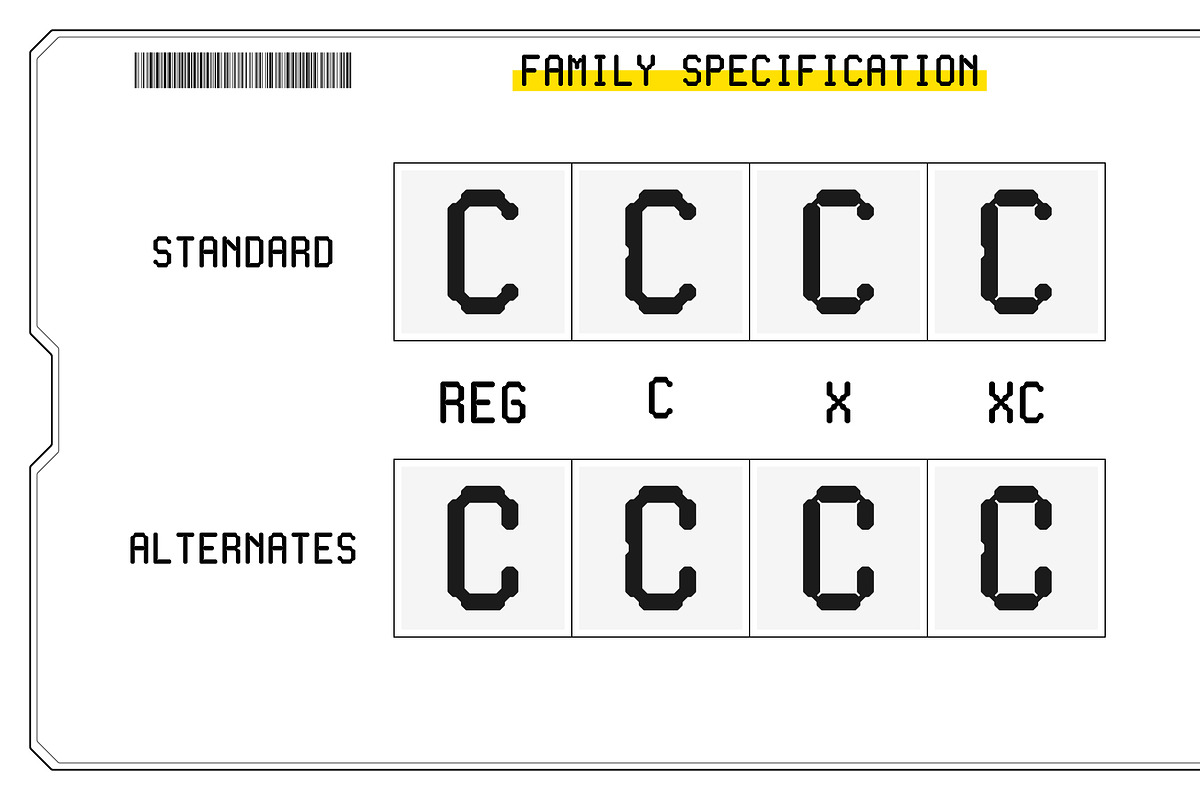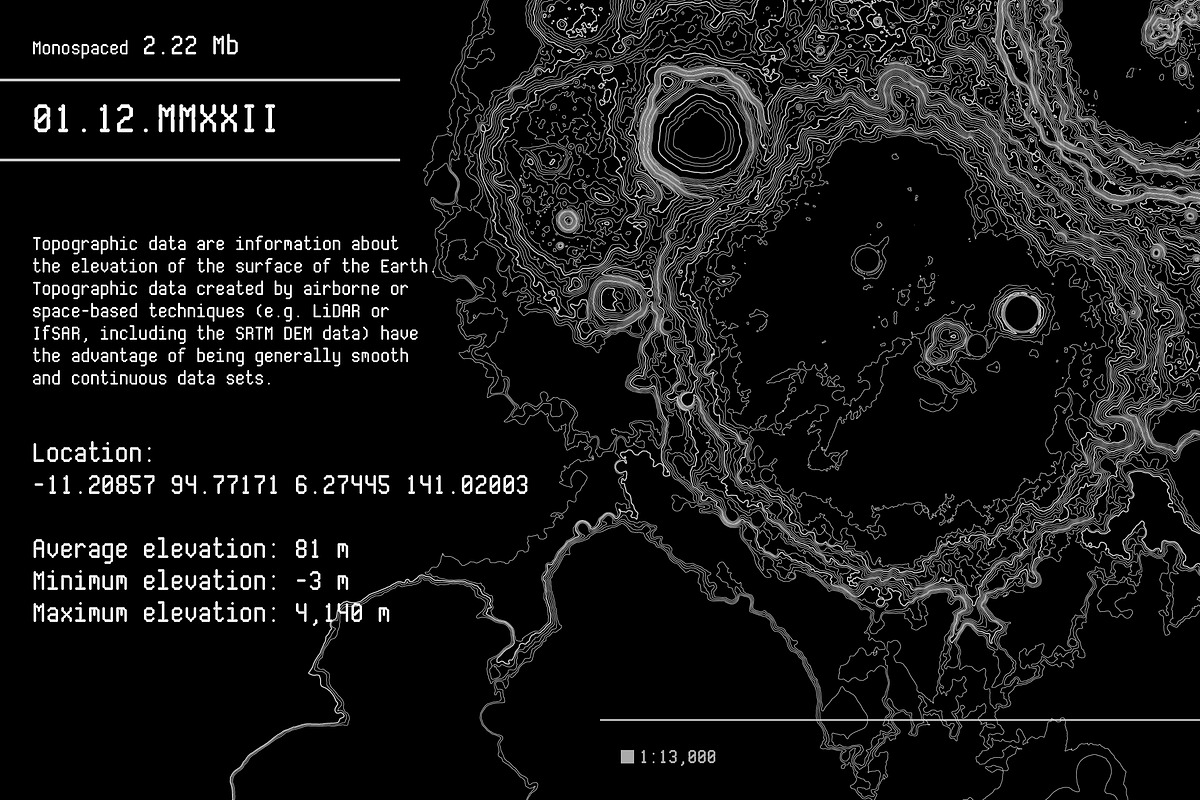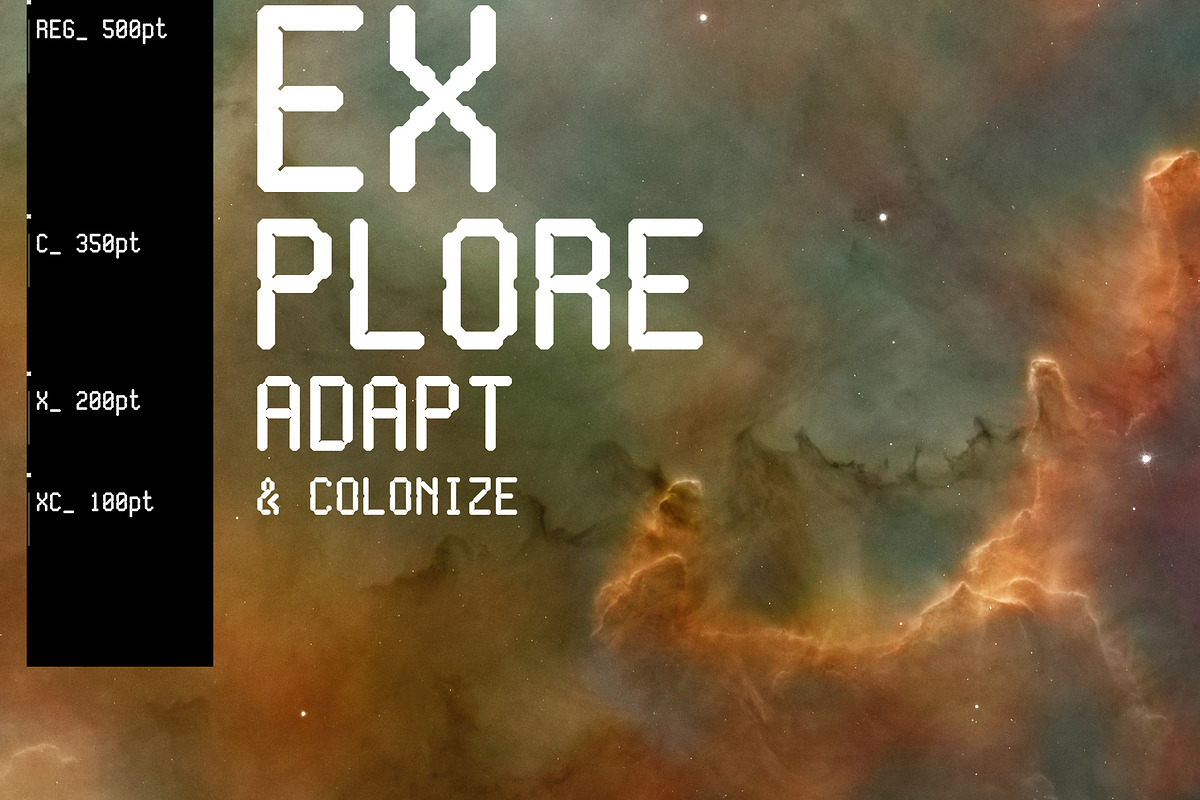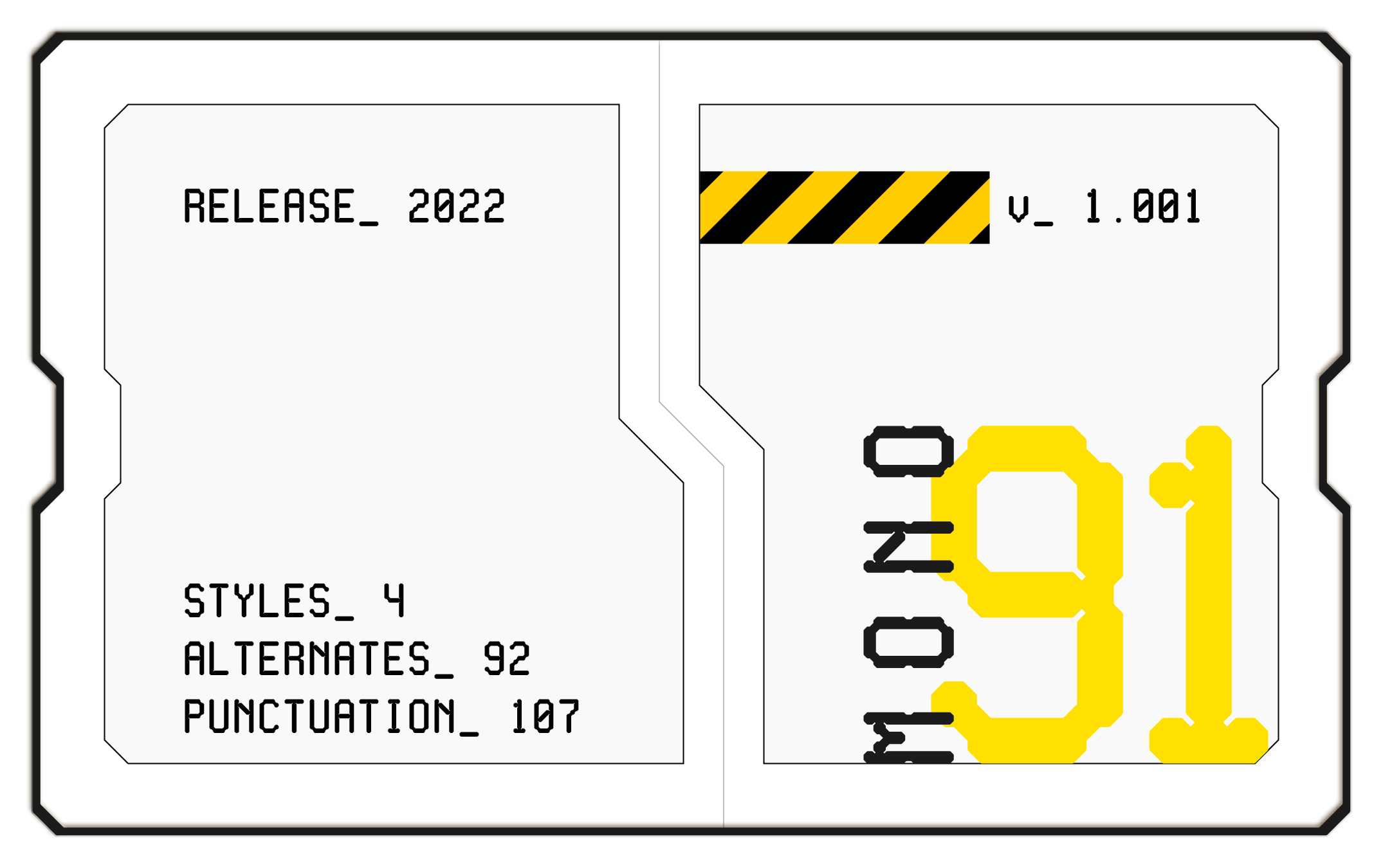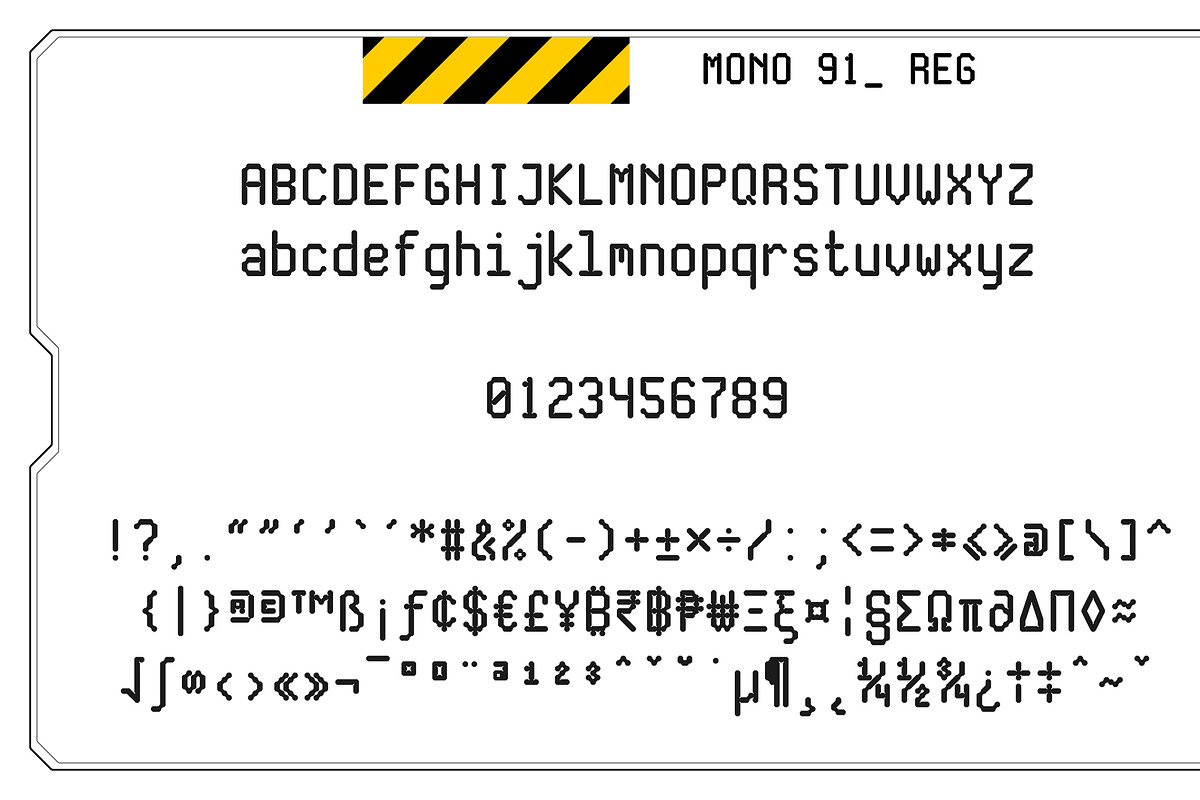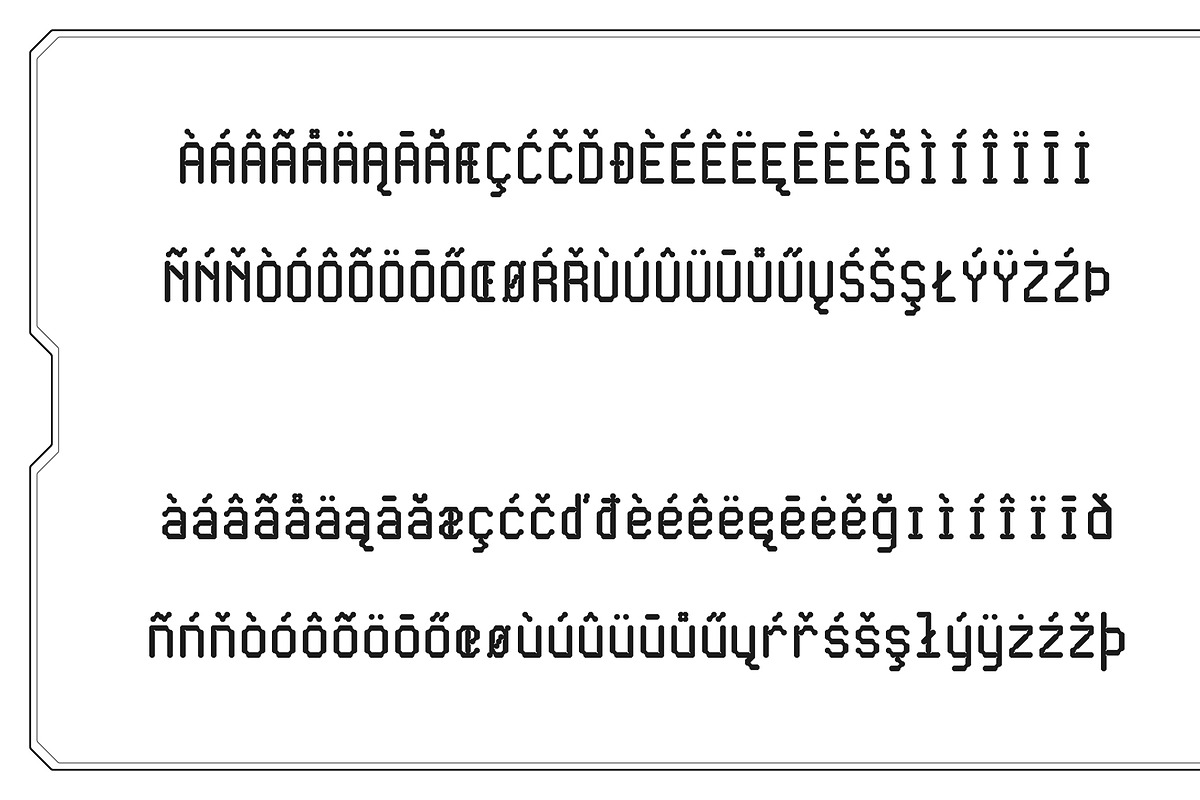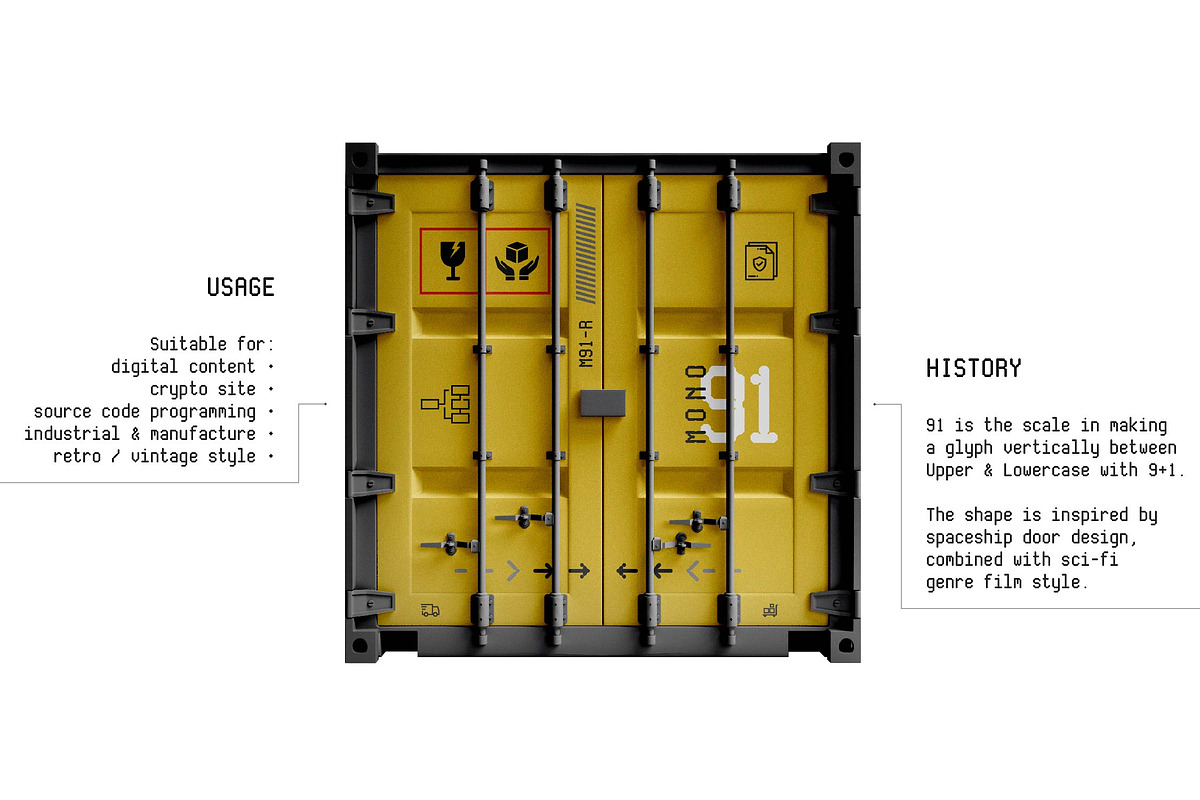
Mono 91 [Monospaced Font]
Mono 91 font is a scientific display typeface with a retro style. The shape is inspired by a spaceship door design, combined with a science fiction genre film style. Suitable for digital content, crypto site, source code programming, industrial, manufacture, and retro/vintage style projects. This font is PUA encoded, which means you can access all of the glyphs with ease.